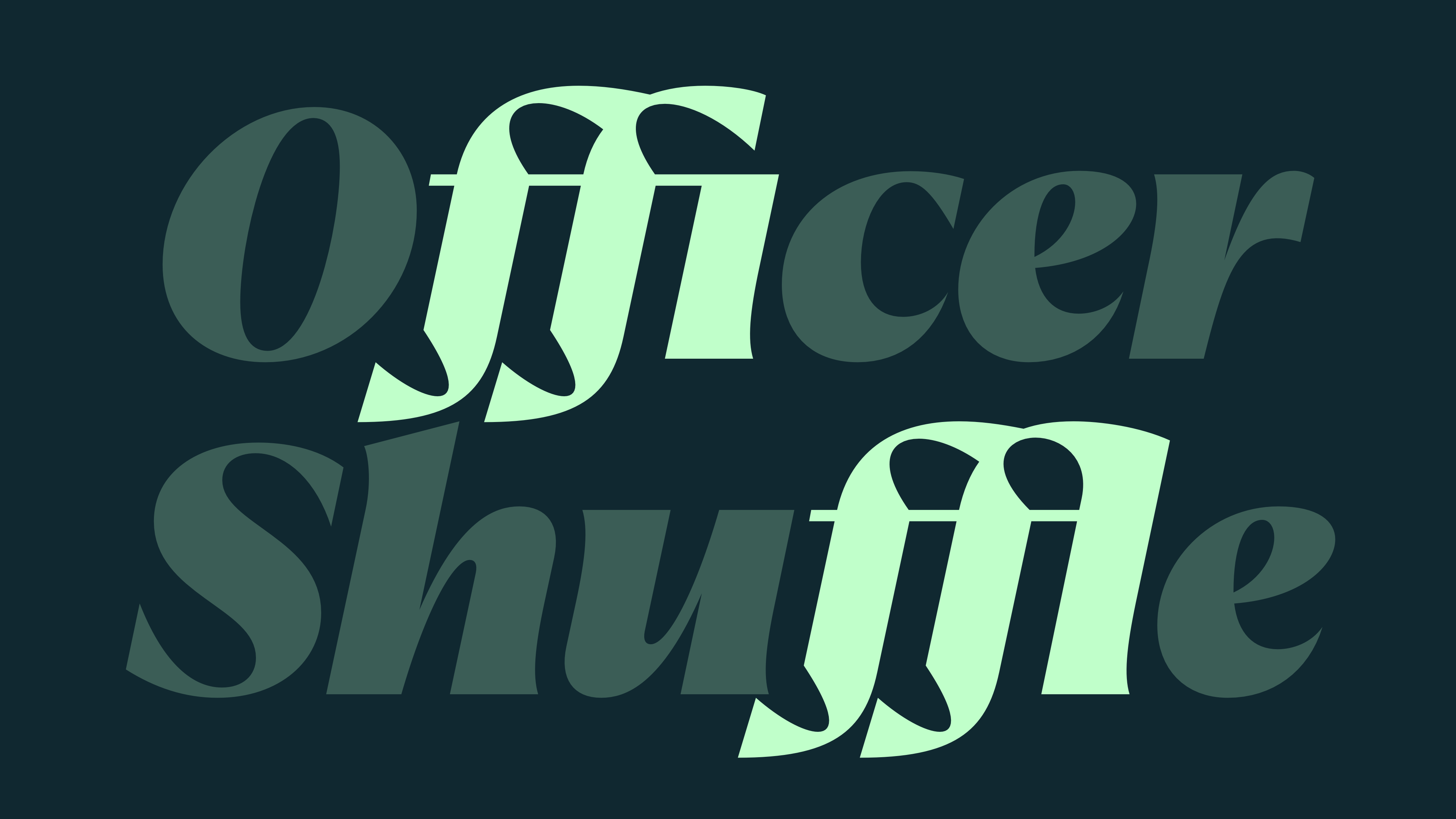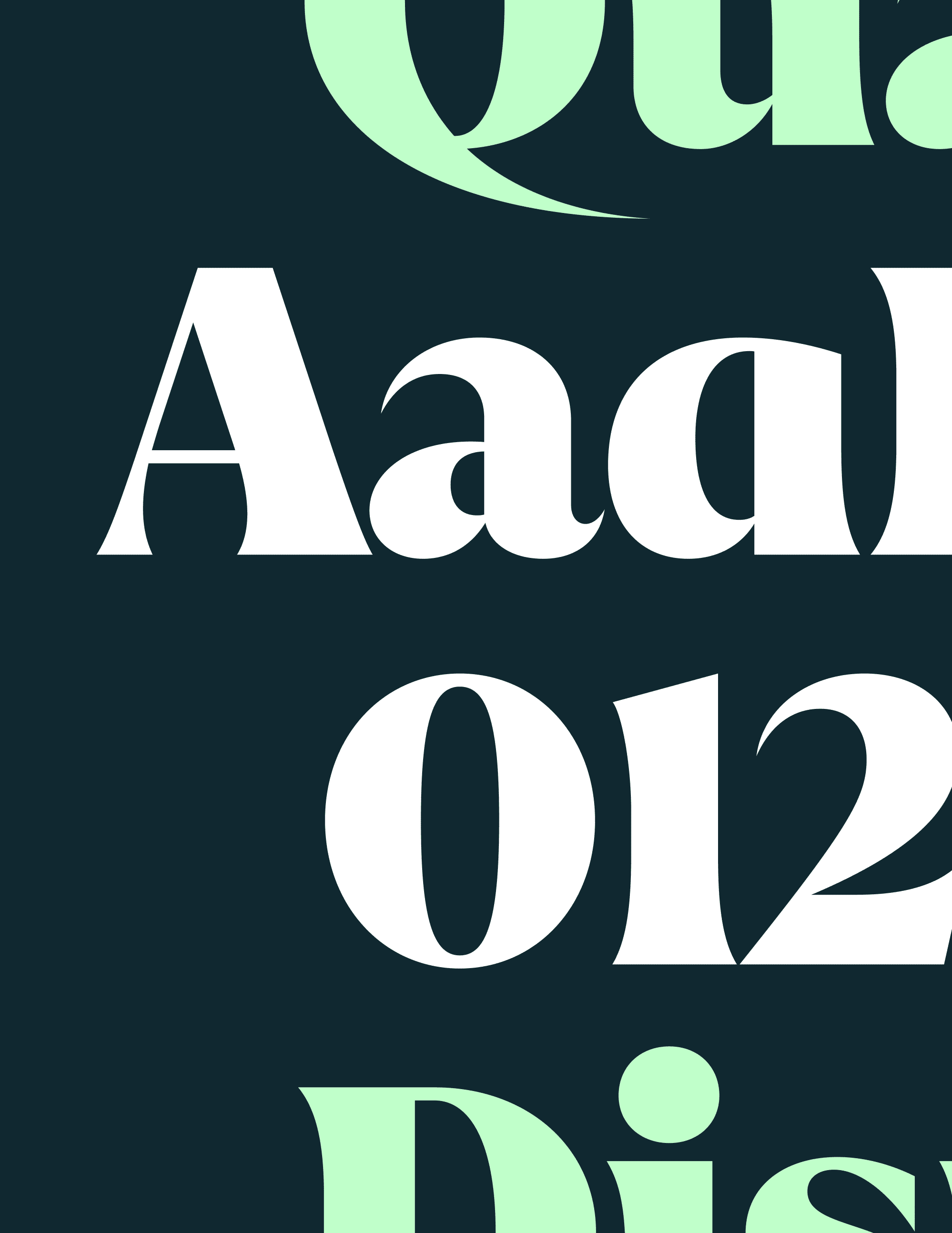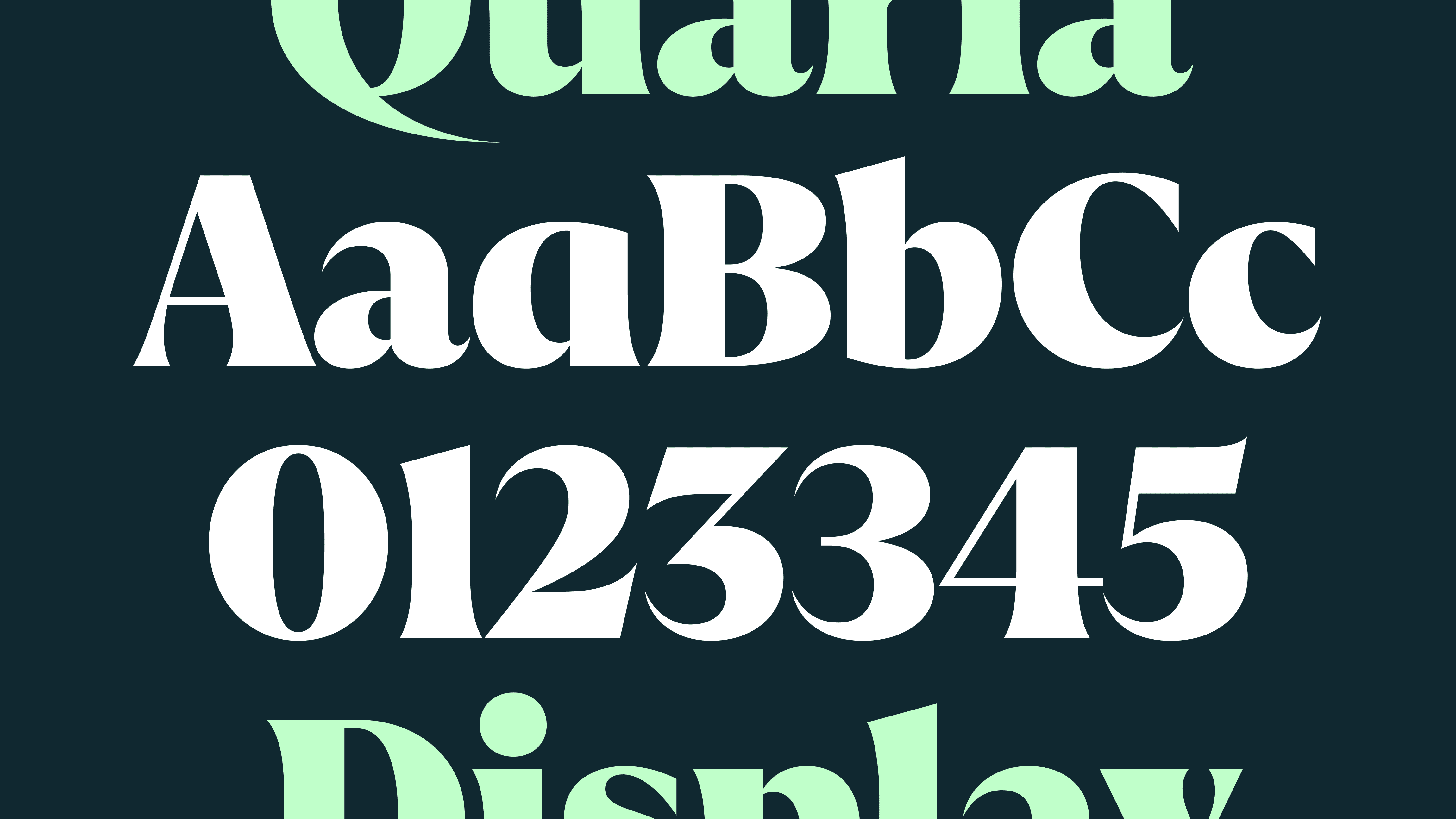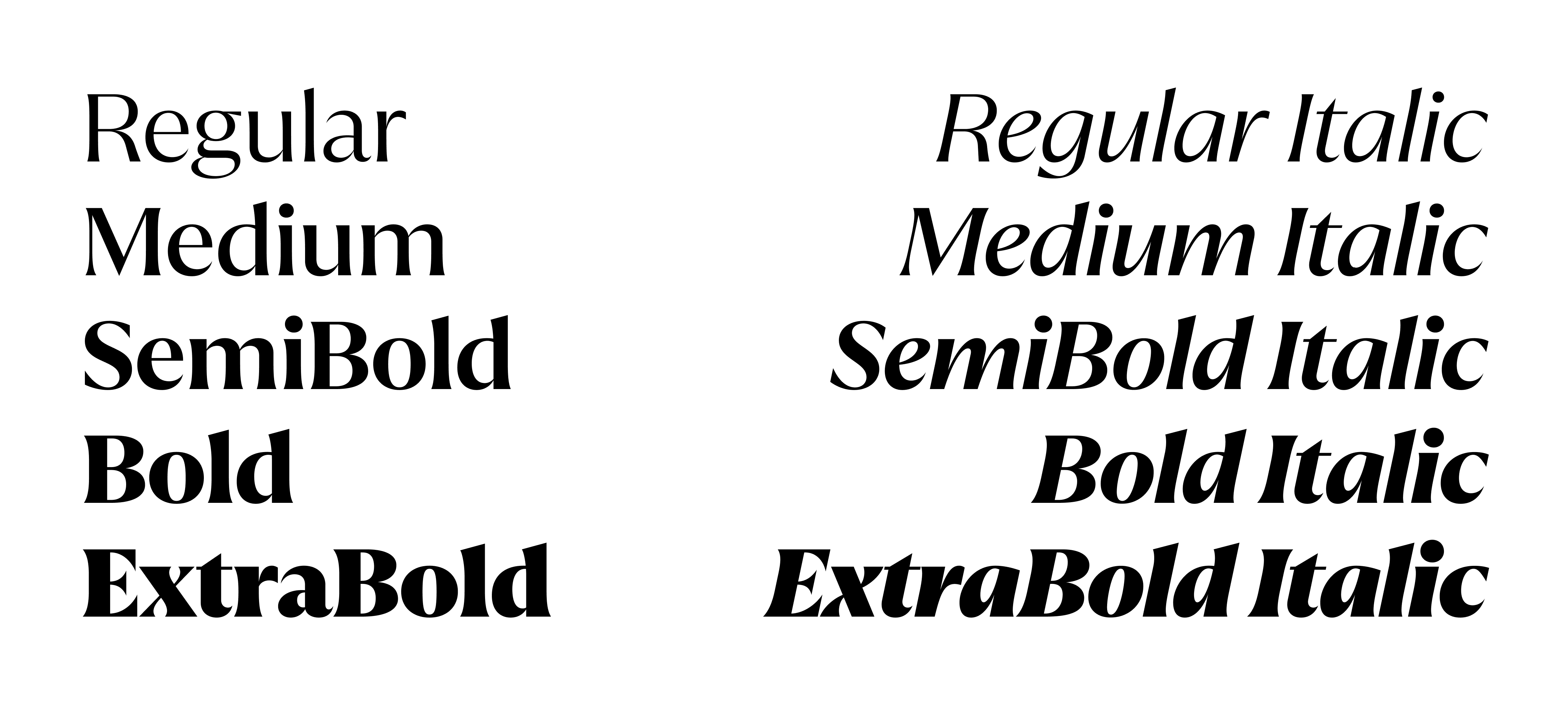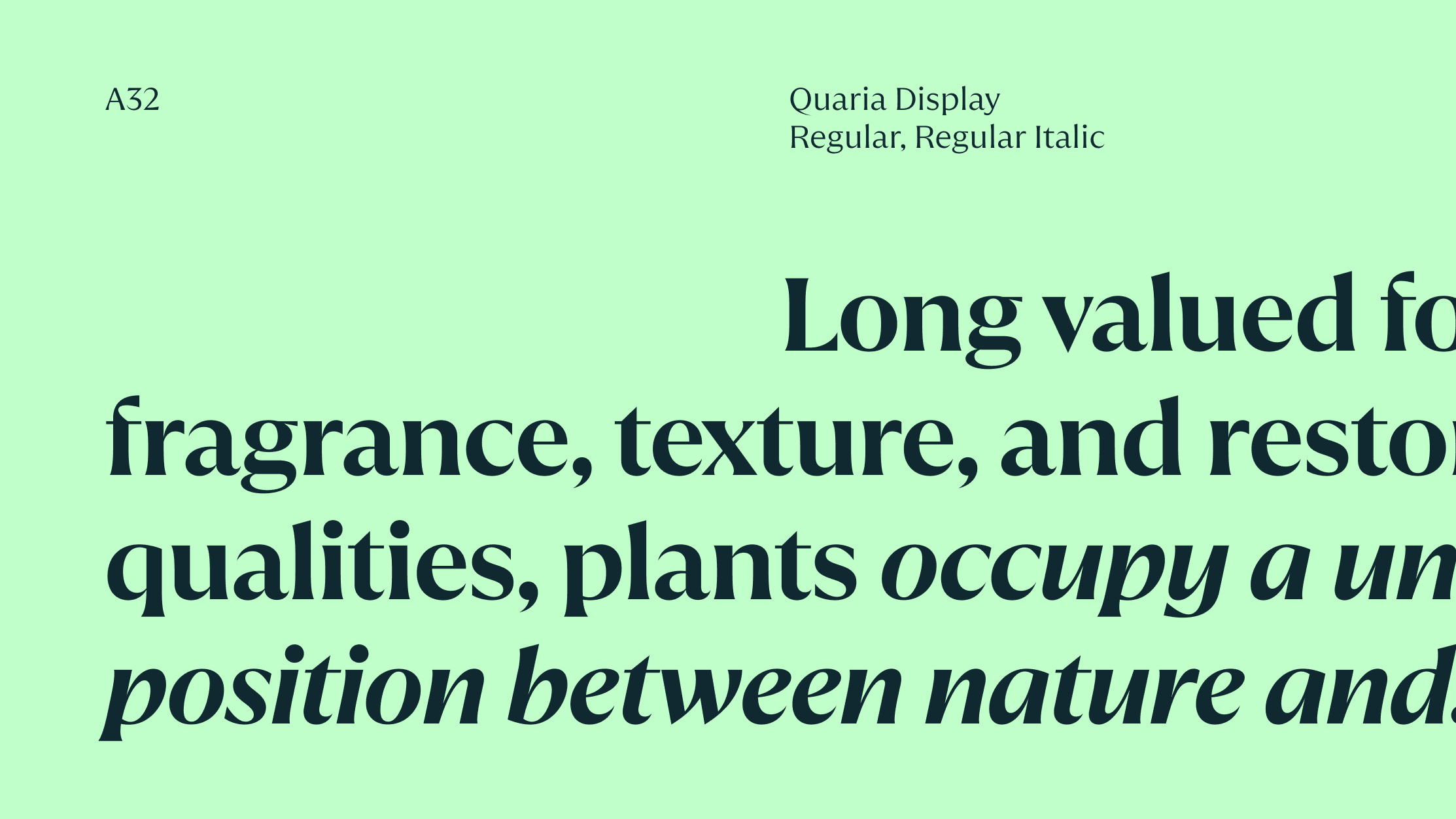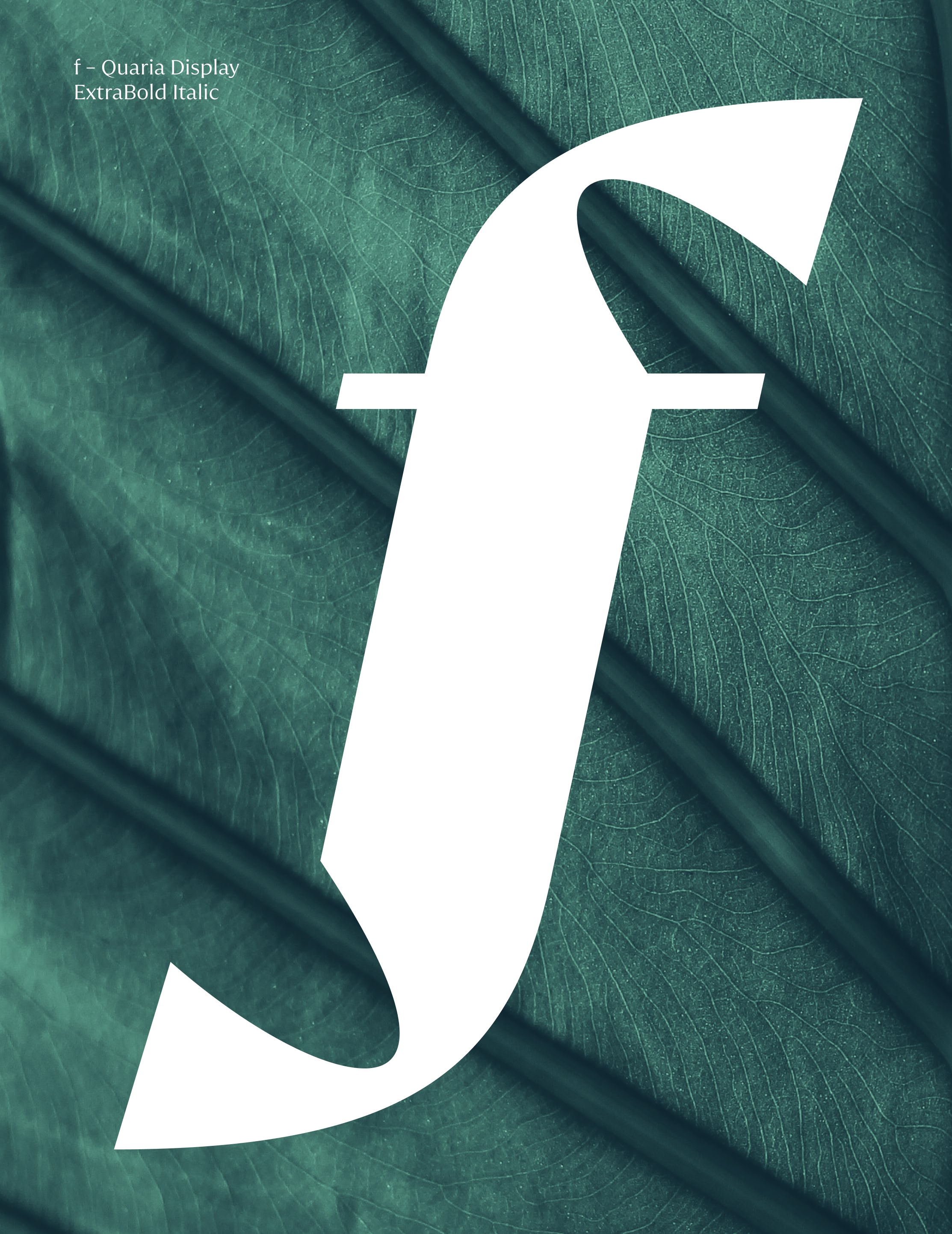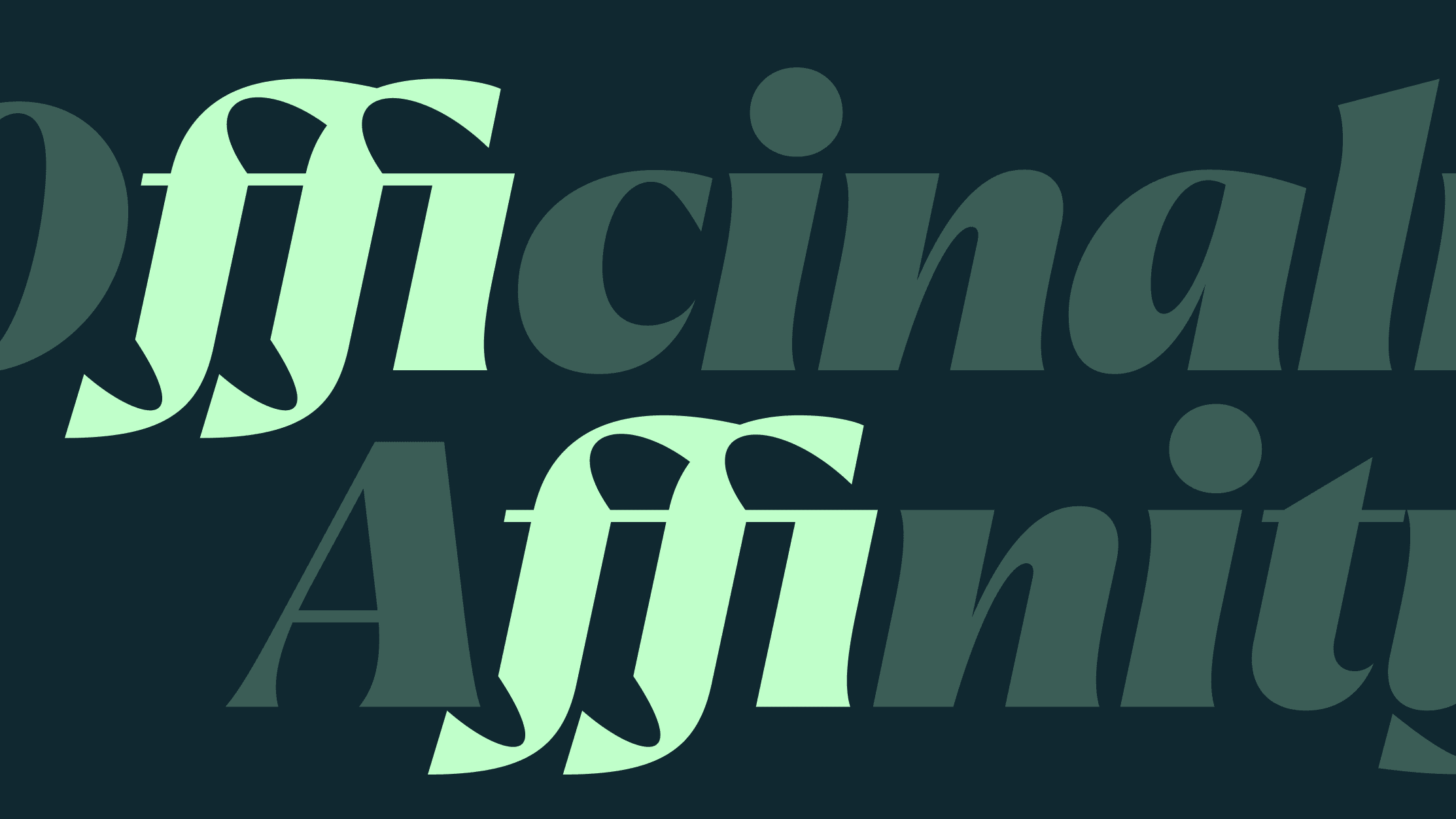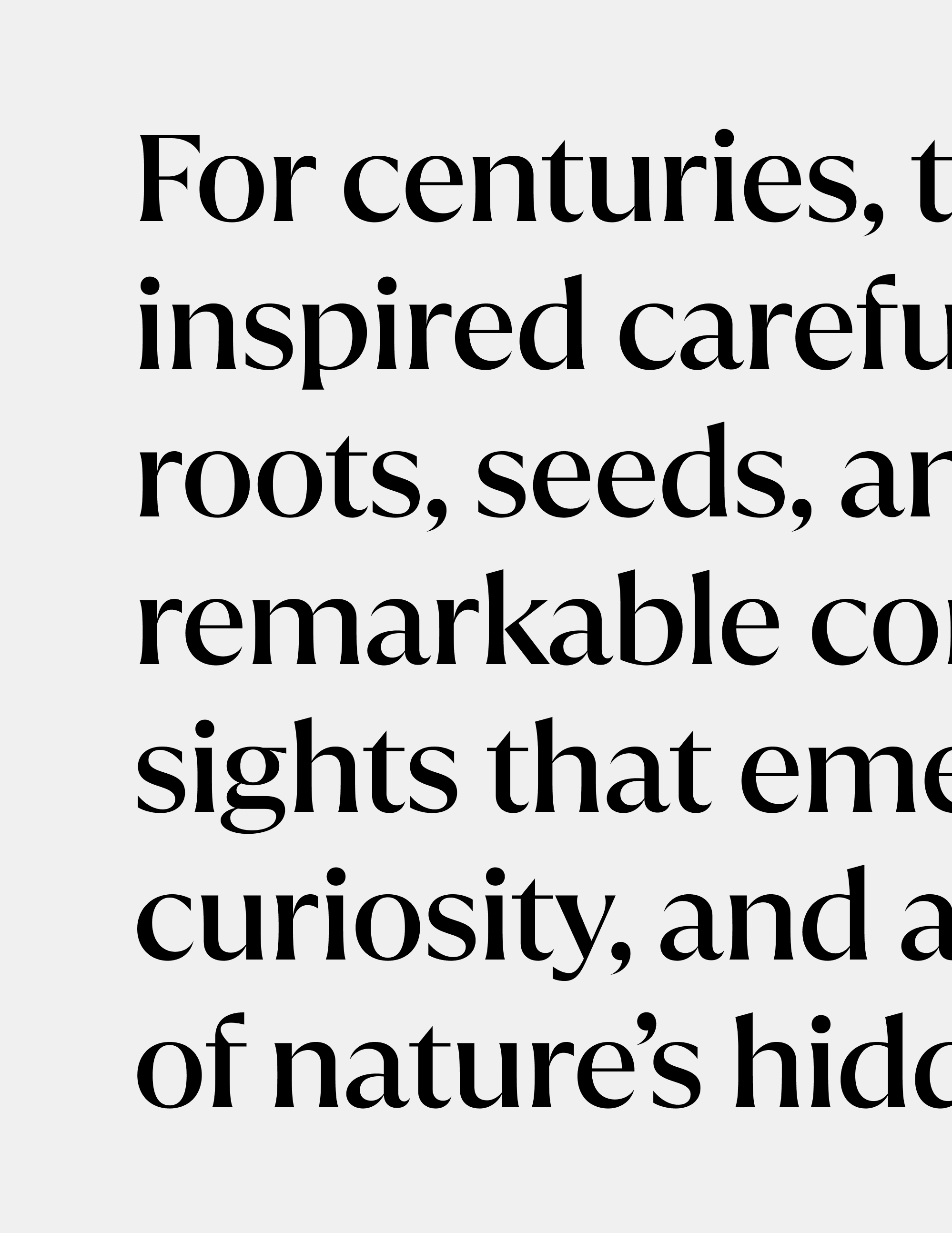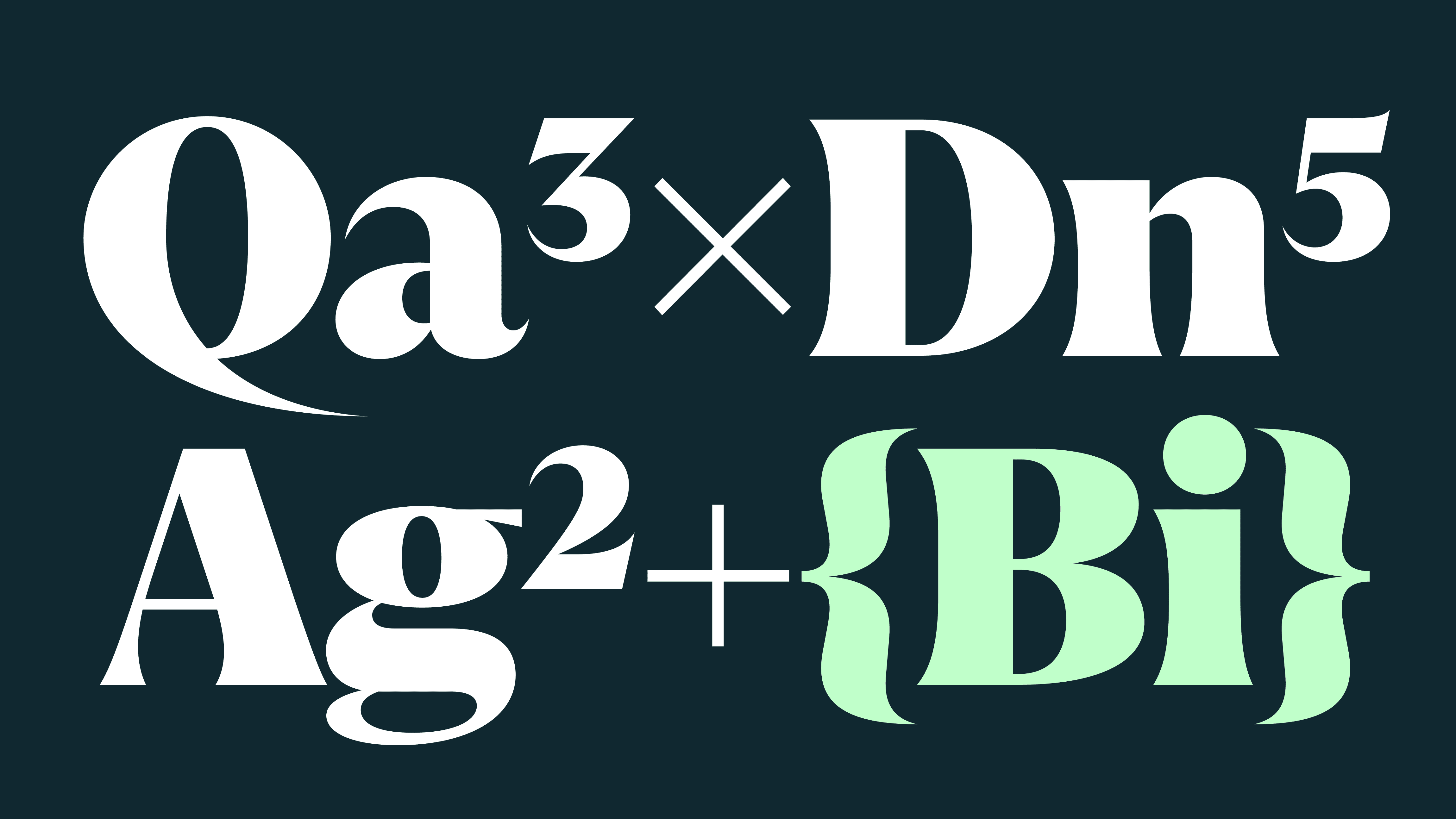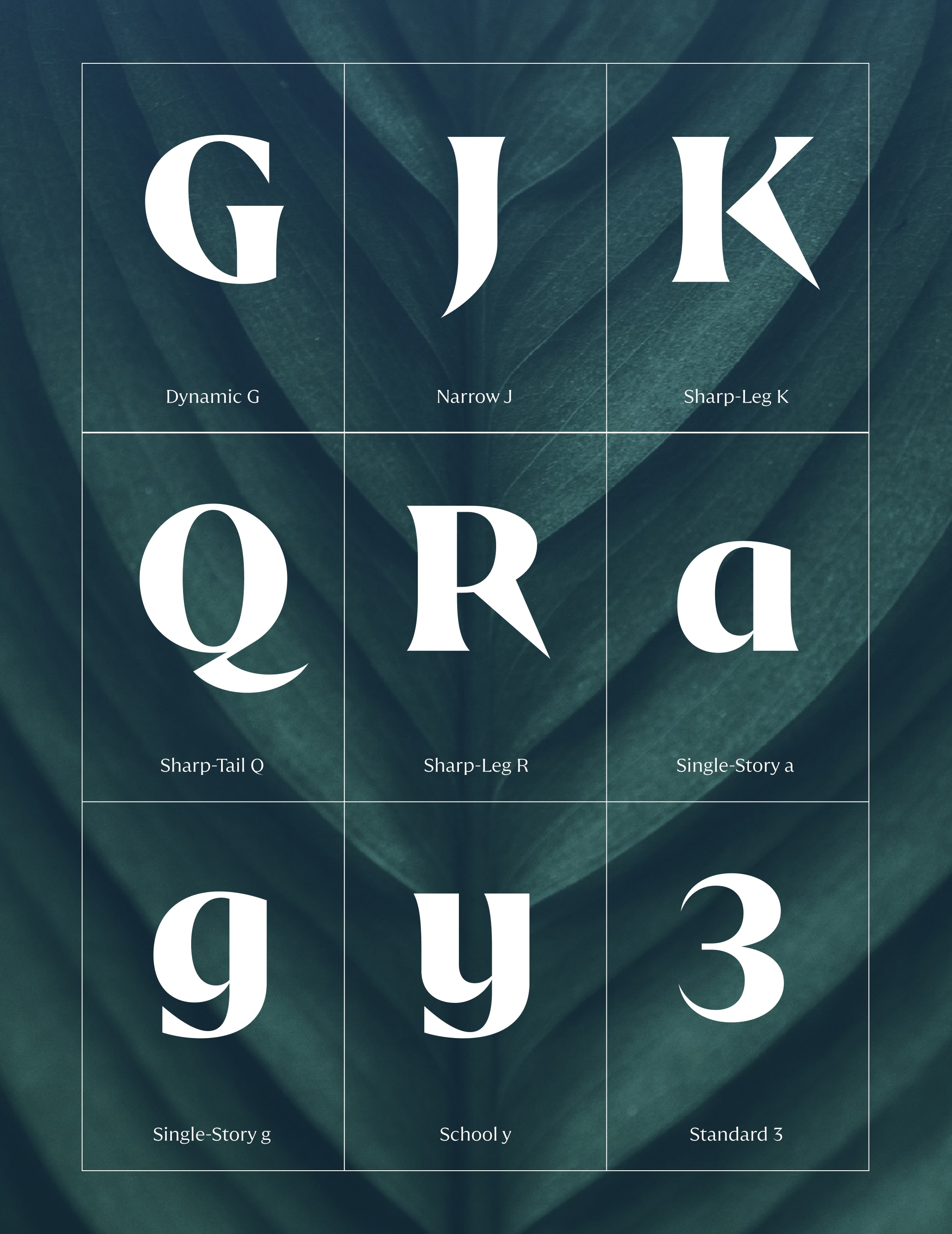
Quaria Display is a hybrid typeface designed for headlines and larger settings. Combining the structural clarity of a sans-serif with details more commonly associated with serif traditions, it balances expression, refinement, and precision across display typography. Also available as Quaria Text.